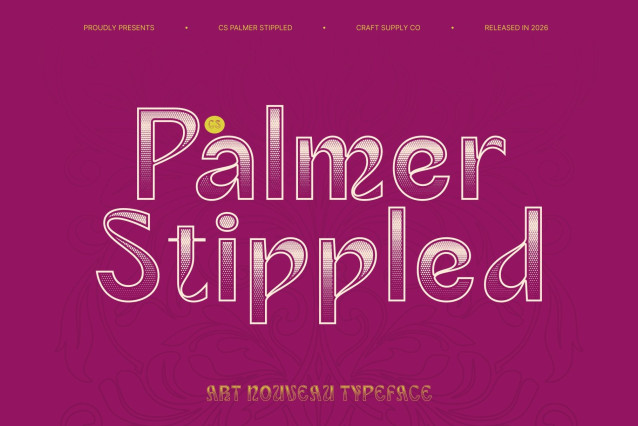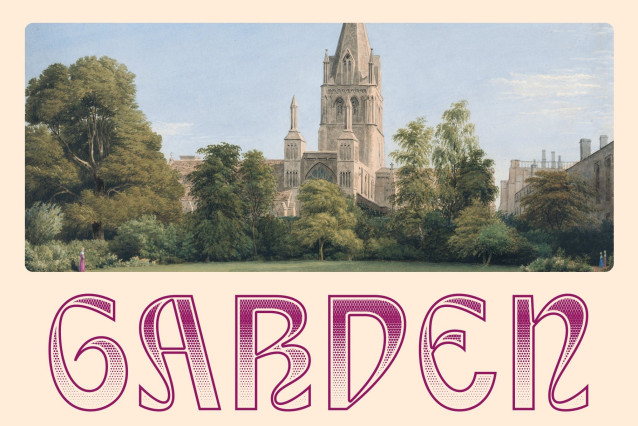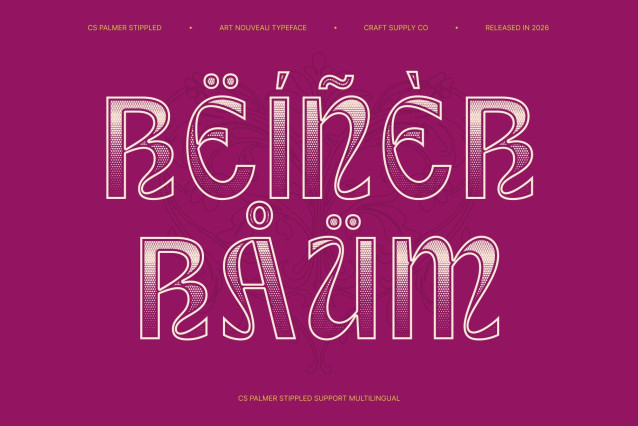
CS Palmer Stippled Font
CS Palmer Stippled – Art Nouveau Font: Elegant Modernity with Artistic Flair
Modern Sans-Serif with Art Nouveau Influence
This is a modern sans-serif font infused with the graceful elegance of Art Nouveau. It blends clean, contemporary letterforms with subtle ornamental curves inspired by nature, while the stippled texture adds a handcrafted, artistic dimension that enhances its refined personality.
Sophisticated Style for Premium Branding
The fusion of decorative Art Nouveau details and minimalist sans-serif structure gives this font a distinctive and upscale character. Perfect for premium branding, editorial layouts, packaging, and luxury promotional materials, it delivers elegance without sacrificing clarity and modern appeal.